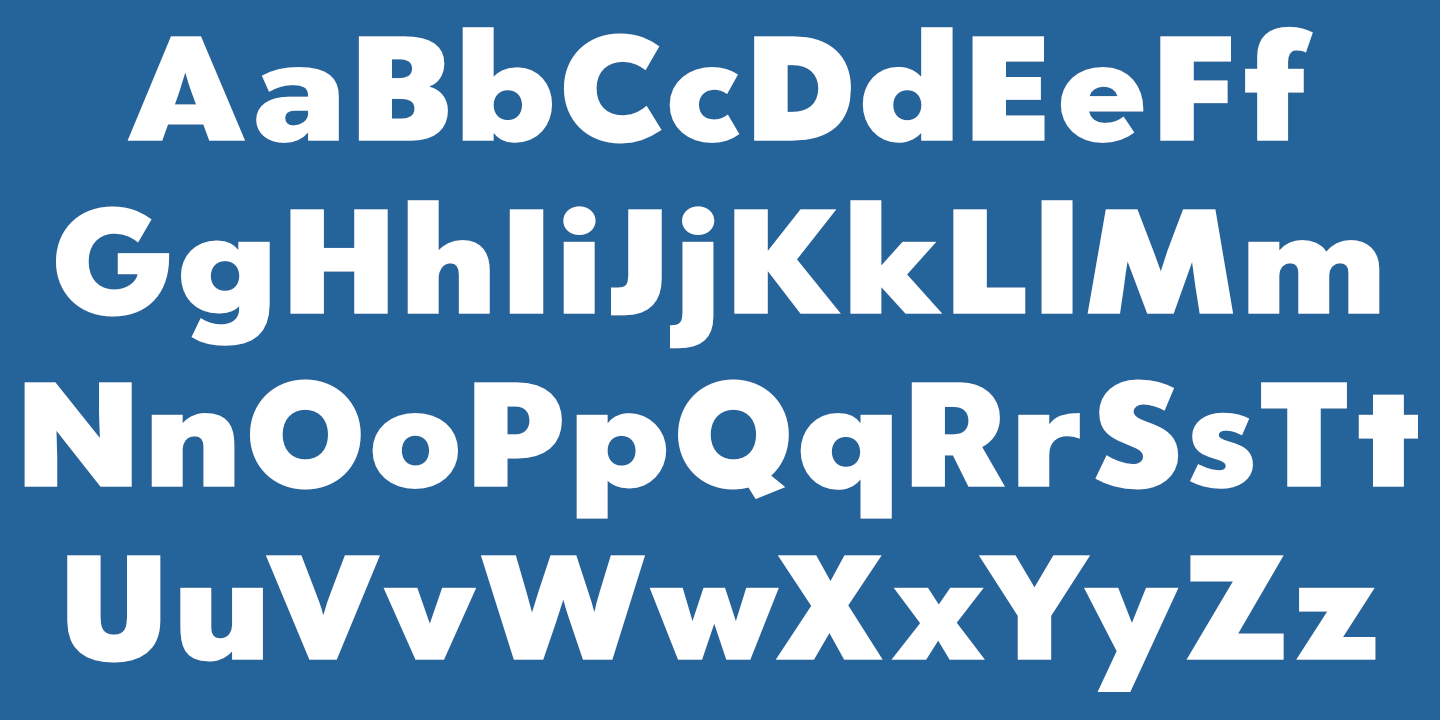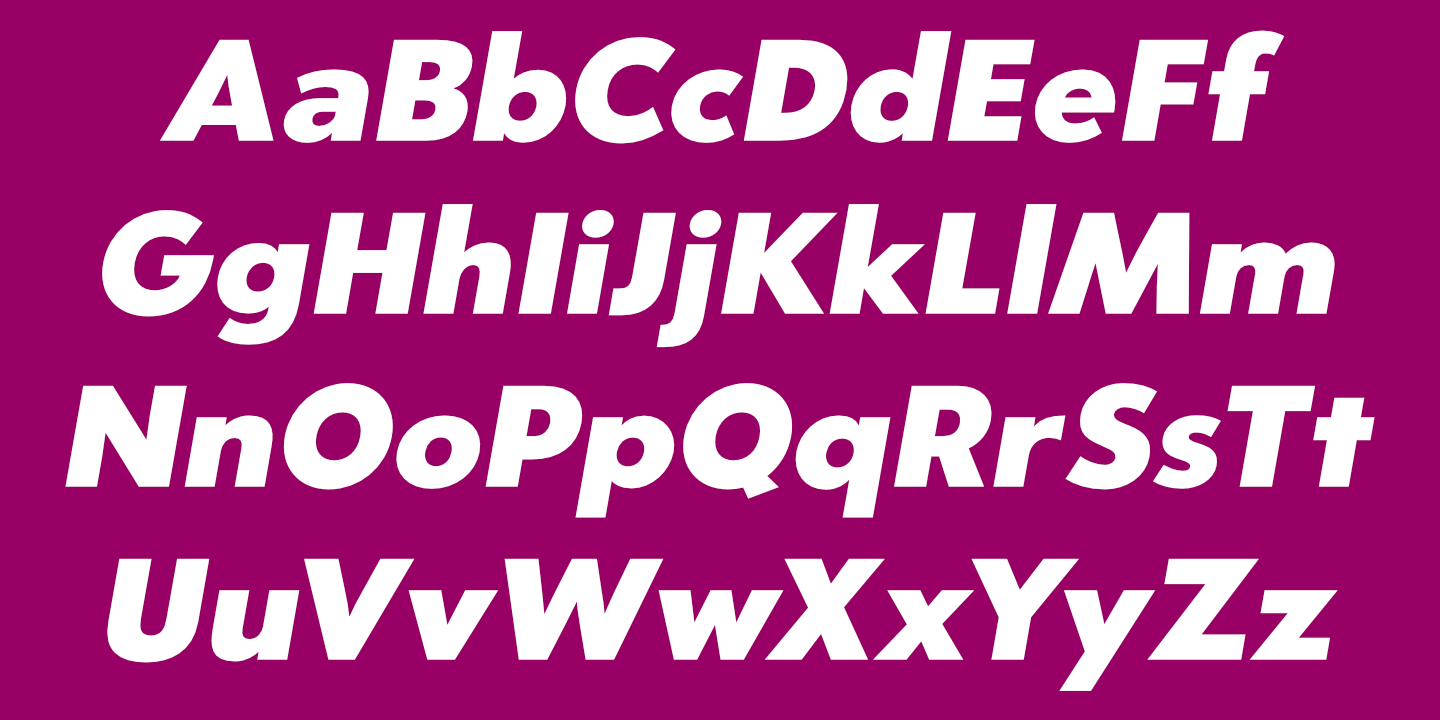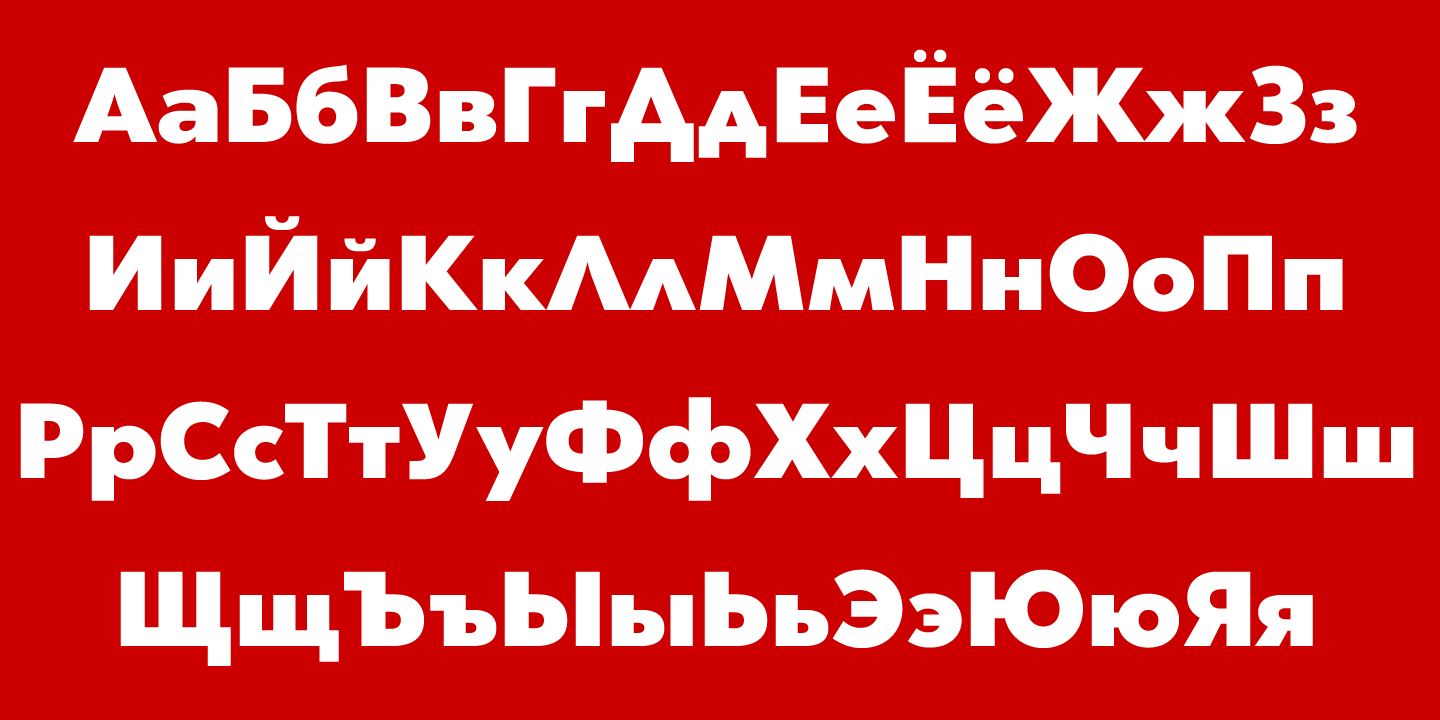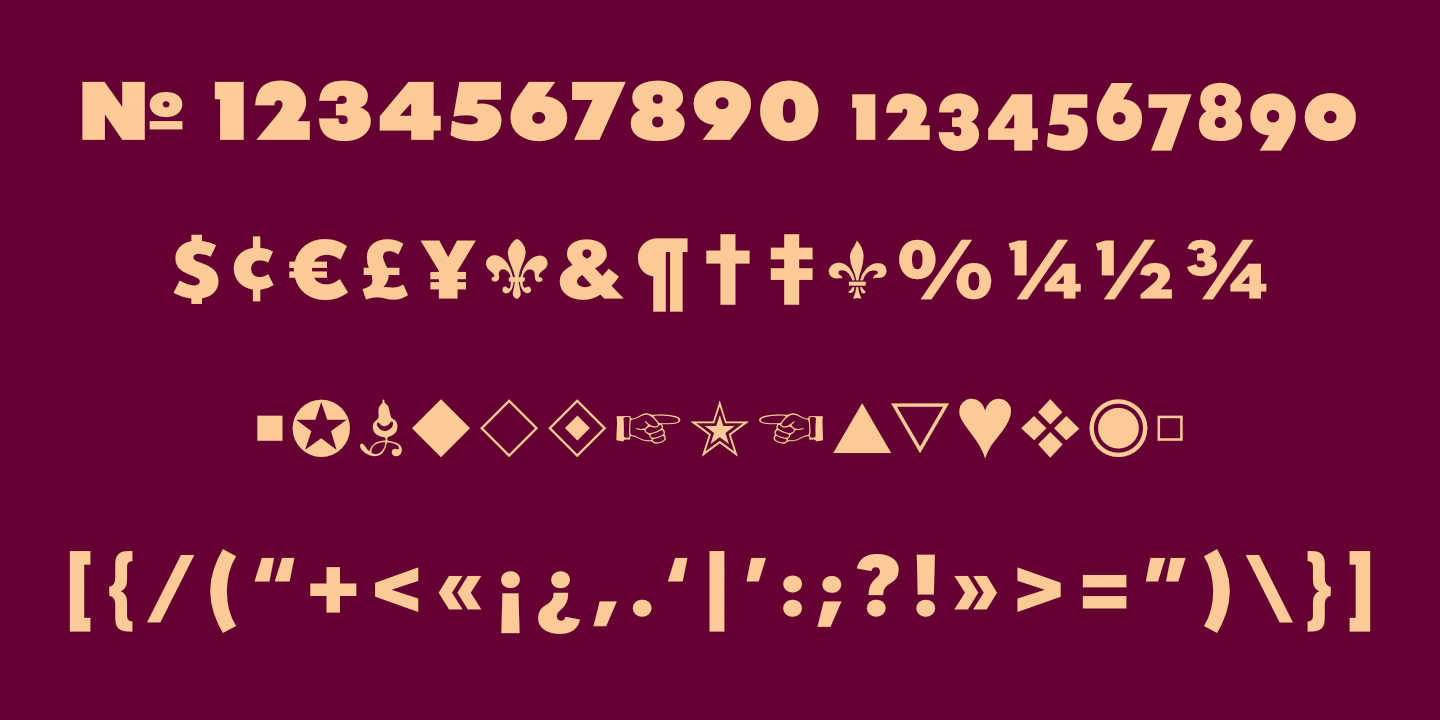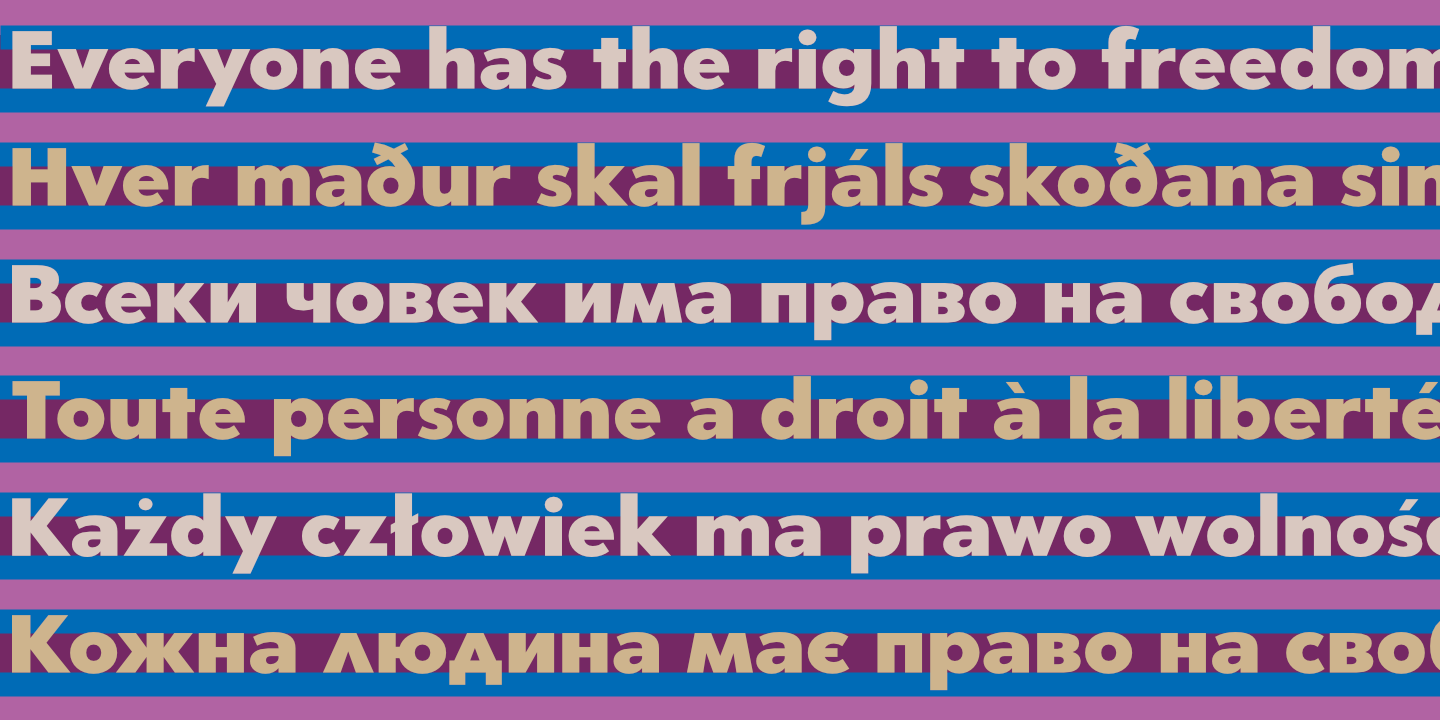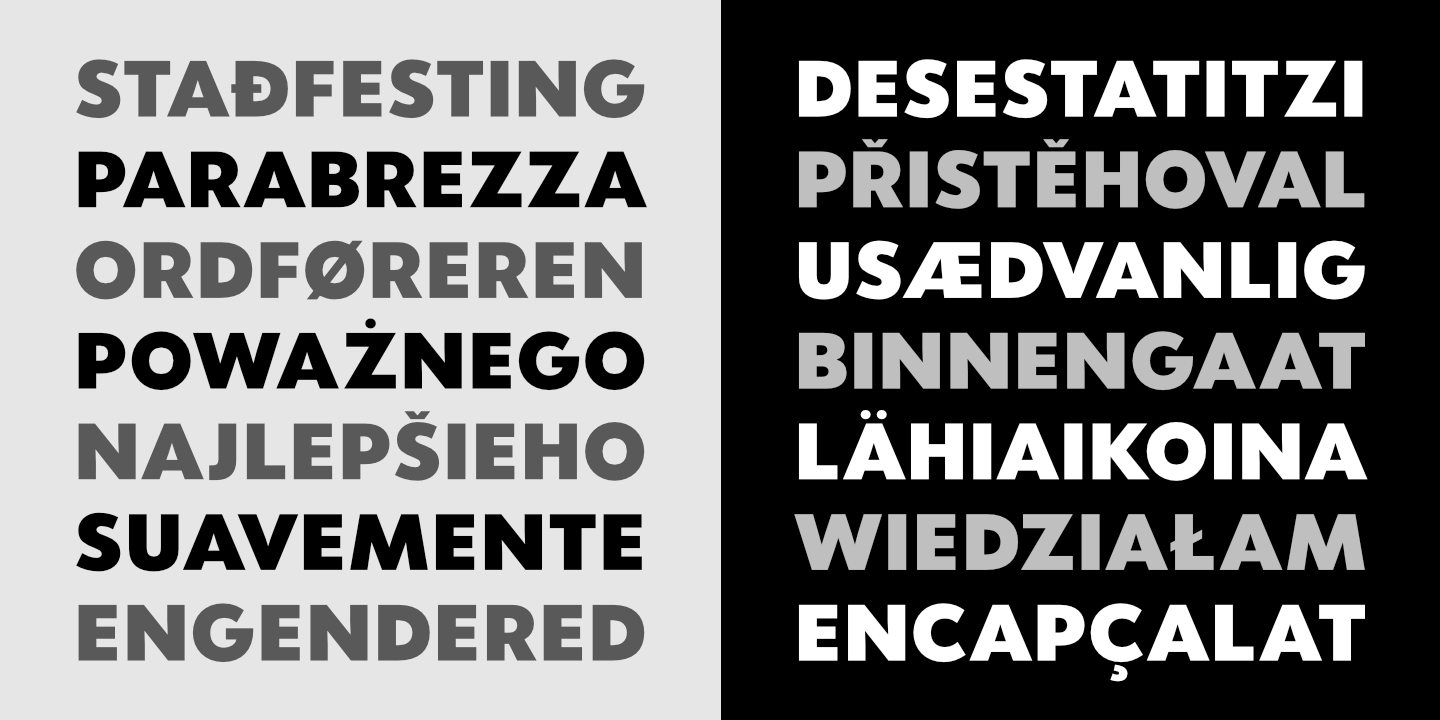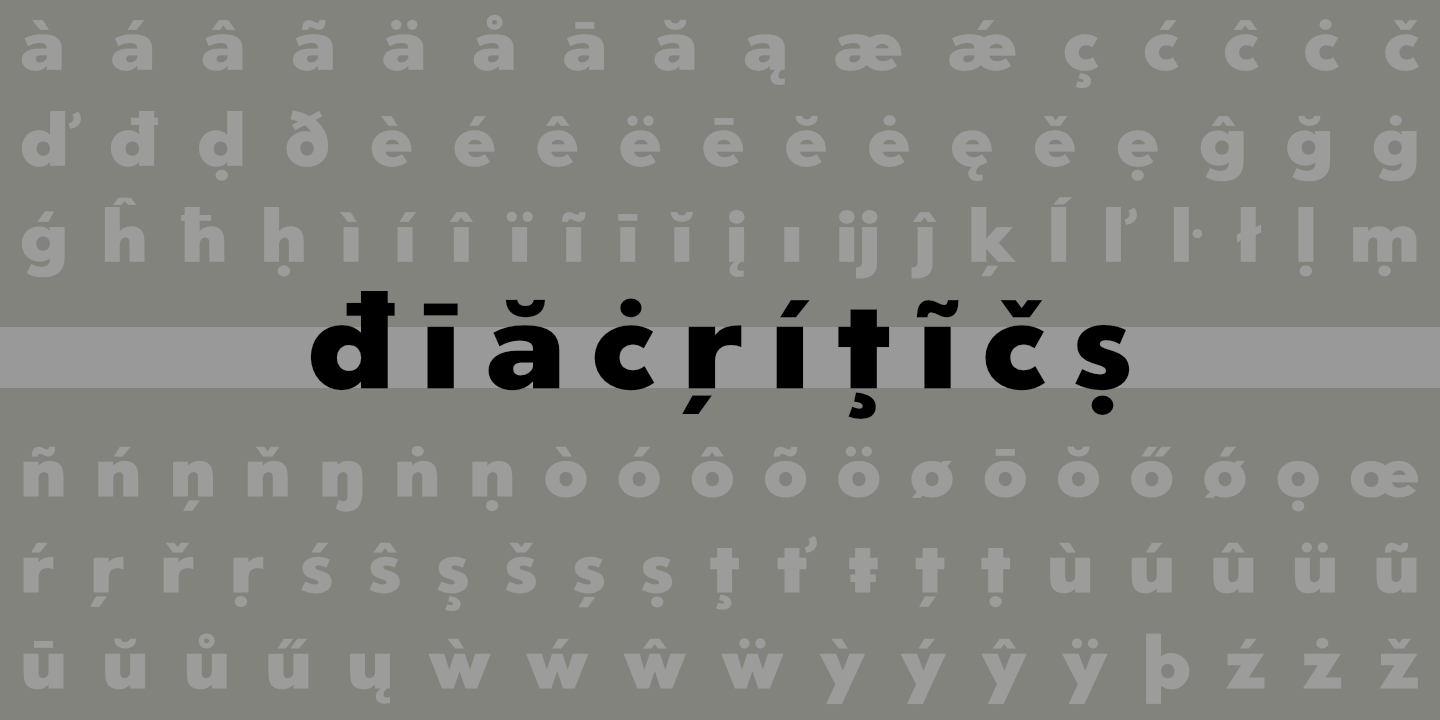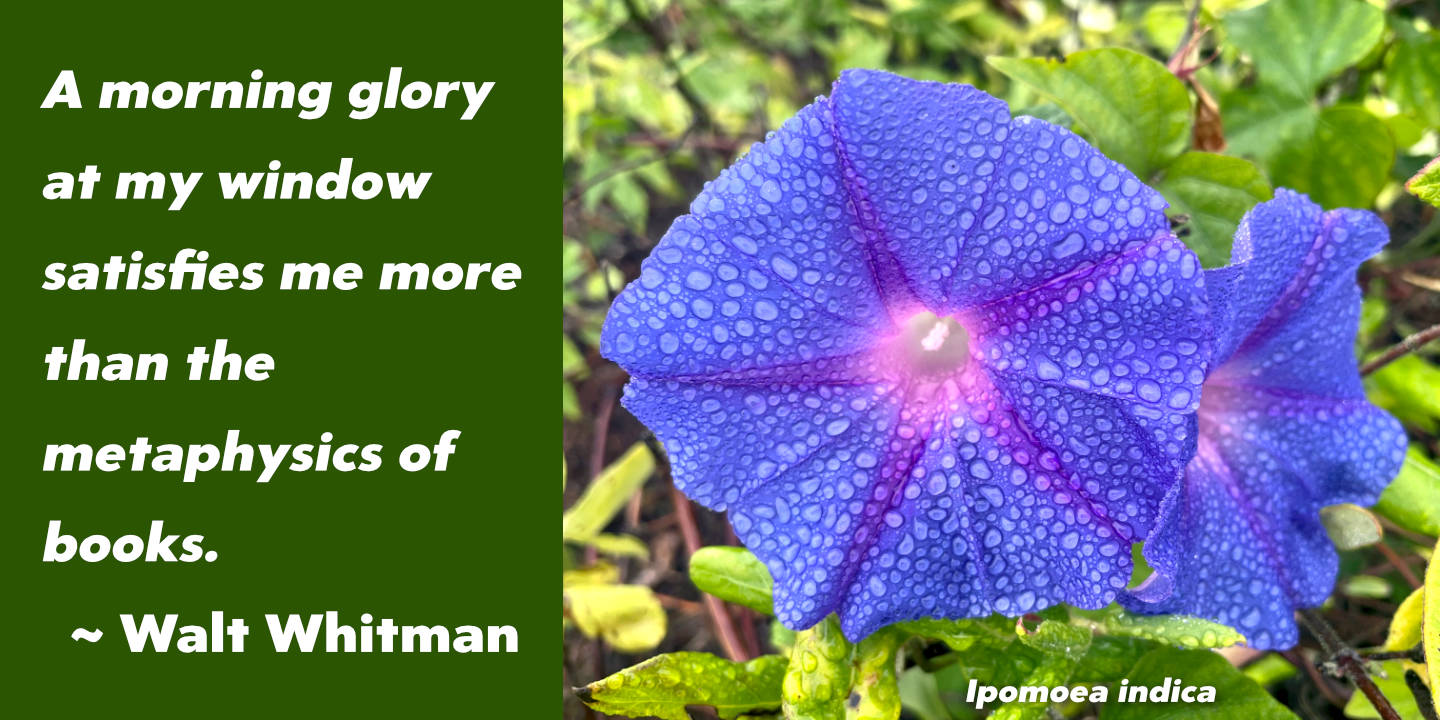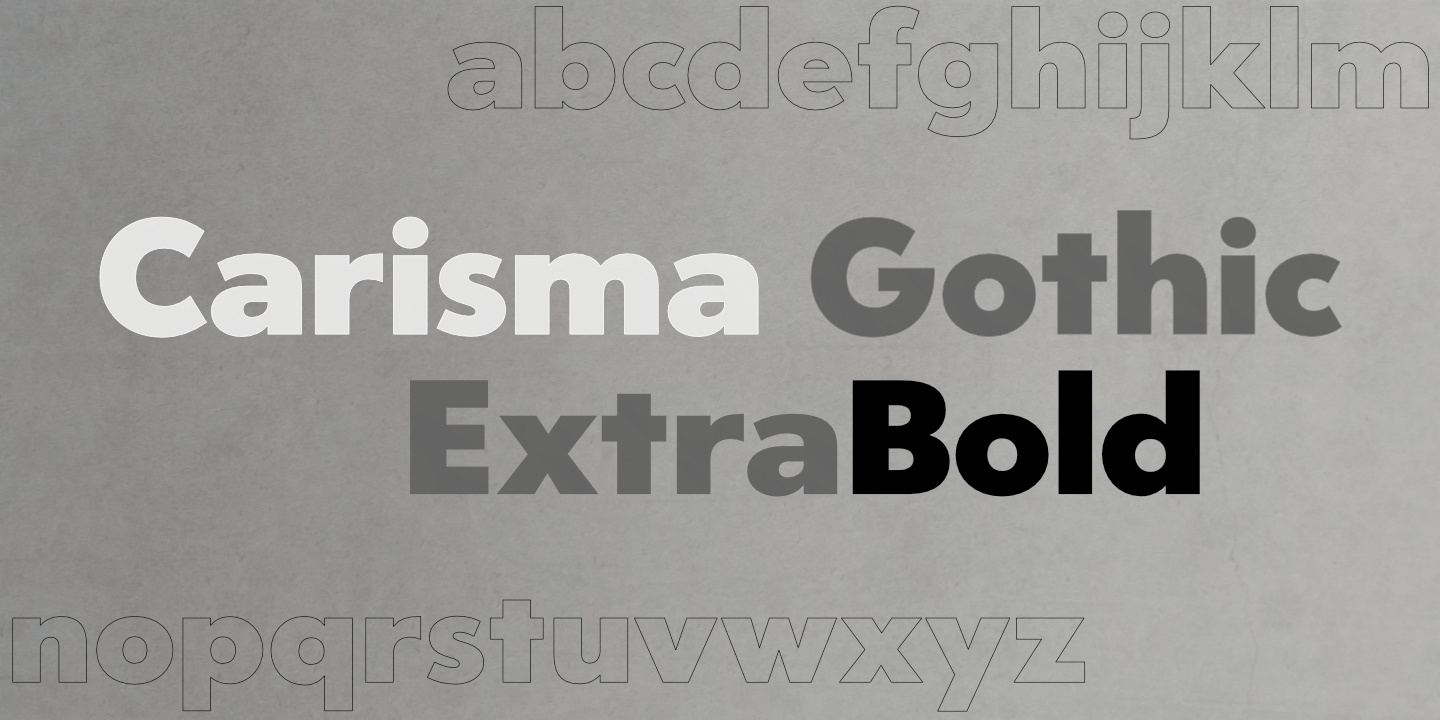
Carisma Gothic Extra Bold: Basic Latin alphabet. See Glyphs for details.
Carisma Gothic Extra Bold Oblique: Basic Latin alphabet.
Carisma Gothic Extra Bold supports most languages that use the Cyrillic alphabet. See Glyphs for details.
Carisma Gothic Extra Bold: Numerals, basic punctuation, currency symbols, and a sampling of ornaments.
Carisma Gothic Extra Bold supports most European languages.
Notice that light text on a dark background appears slightly heavier than dark text on a light background.